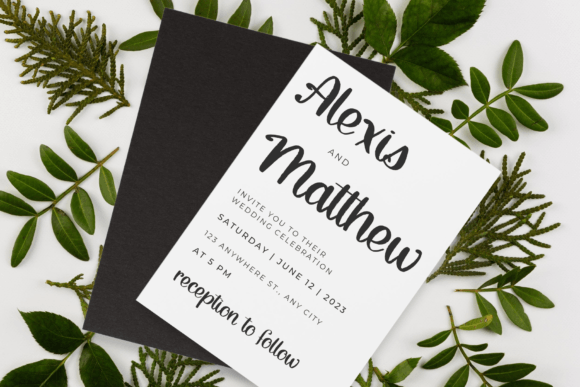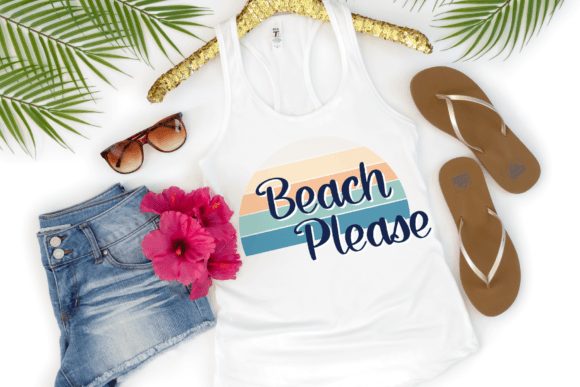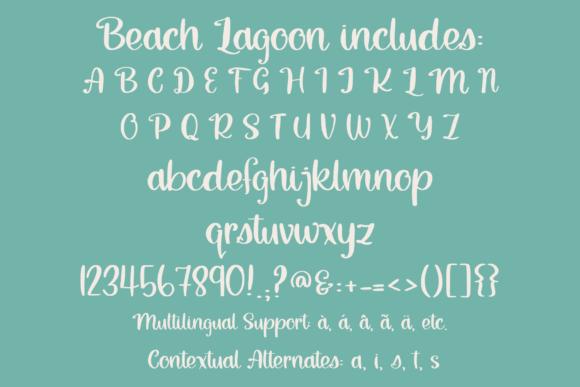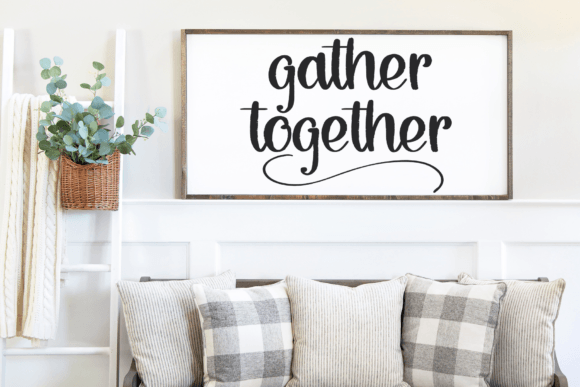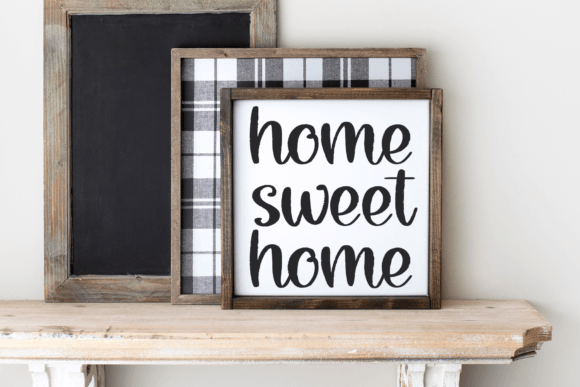
The Perfect Wave of Creativity: Introducing Beach Lagoon Font
Have you ever been sitting by the ocean, watching the sun set behind the waves, and suddenly felt an overwhelming urge to create something beautiful? For designers, this feeling is a familiar spark that ignites the imagination and fuels our passion for bringing new ideas to life.
For those who crave a font that captures the essence of this creative moment, look no further than the Beach Lagoon Font. This stunning handwritten font is designed to evoke a sense of style and sophistication, making it perfect for fashion branding, blog headers, and social media graphics. Its clean lines, sharp angles, and fluid curves create a unique visual identity that will set your designs apart.
Whether you’re a seasoned designer or just starting out, the Beach Lagoon Font is a valuable addition to your toolkit. Its versatility and elegance make it an ideal choice for a wide range of projects, from fashion and beauty to lifestyle and entertainment.
Beach Lagoon Font Key Features
• Unique Characteristics: This font features a unique blend of modern and beach-inspired elements, making it perfect for designs that require a touch of elegance and playfulness.
Beach Lagoon Font Review
Beach Lagoon Font is a visually appealing, hand-drawn font that’s perfect for beach-themed or tropical projects. I was immediately drawn to its ✨ playful, whimsical feel. The font’s unique combination of rounded edges and organic shapes makes it stand out from more traditional serif fonts.
• ✨ Unique and playful design
• ✨ Perfect for beach-themed or tropical projects
• ✨ Can add a touch of whimsy to any design
• ⚠️ May not be suitable for formal or professional projects
• ⚠️ Limited character set, may not be available for certain languages
• ⚠️ May not be easily readable at very small font sizes
Overall, I think Beach Lagoon Font is a great choice for designers looking to add a touch of personality to their projects. While it may have some limitations, its unique design and versatility make it a great addition to any font collection.
Tips for Getting the Most Out of Beach Lagoon Font
Beach Lagoon Font is perfect for:
• Beach-themed designs
• Summer-inspired projects
• Water-themed graphics
For optimal results, use Beach Lagoon Font in conjunction with beach-themed graphics and colors.
What is the recommended font size for the Beach Lagoon Font?
The recommended font size for the Beach Lagoon Font varies depending on the context and intended use. For body text, a font size between 12-14 points is recommended. For headings and titles, a font size between 24-48 points is suitable. However, feel free to experiment and adjust the font size to suit your design needs.